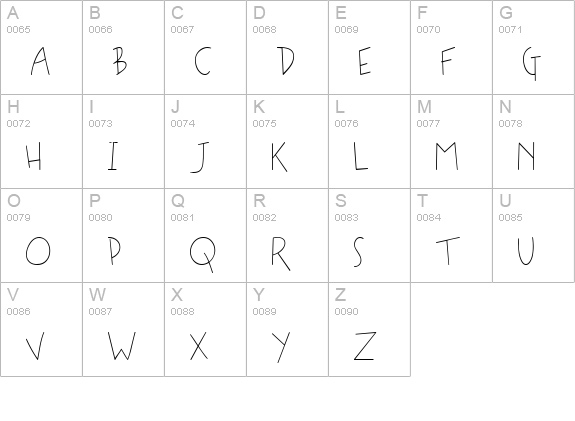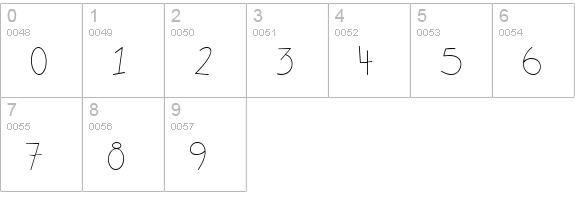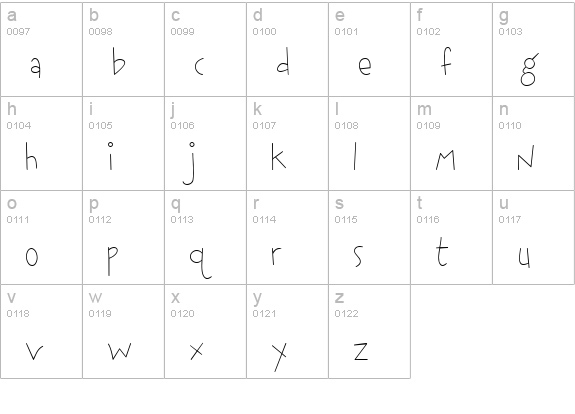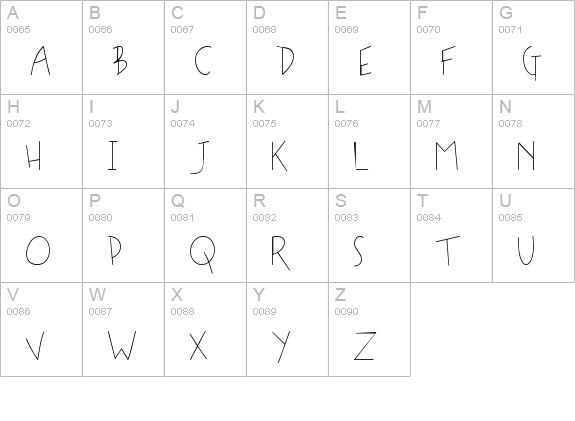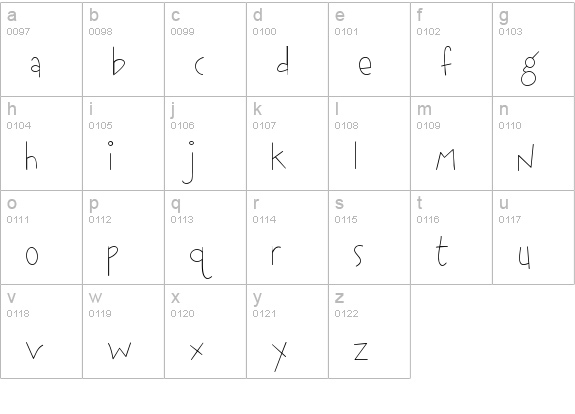
CK Eclectic font is a unique and versatile typeface that combines elements of classic elegance with a modern twist. Its bold and distinctive letterforms make a statement while maintaining readability and charm. The font's eclectic style is perfect for a wide range of design projects, from branding to editorial design to social media graphics. What's even better is that CK Eclectic font is available for free download at FontsMarket.com. This means you can easily add this stylish and eye-catching font to your collection without any cost. So go ahead and give your designs a fresh and contemporary look with CK Eclectic font today!